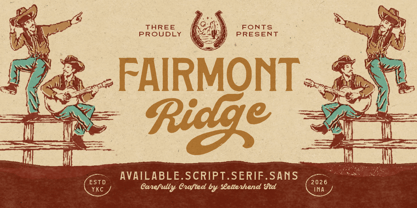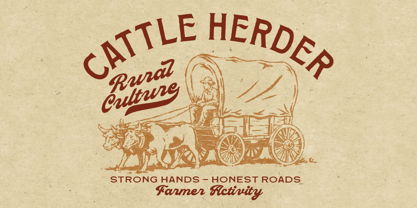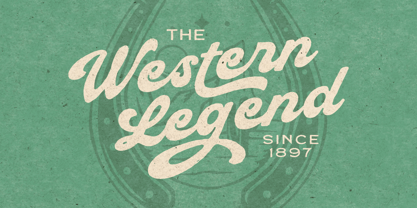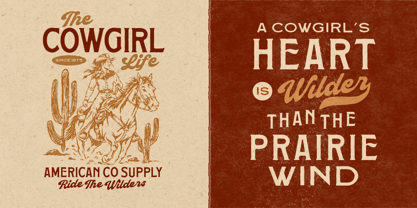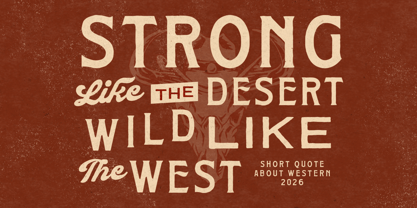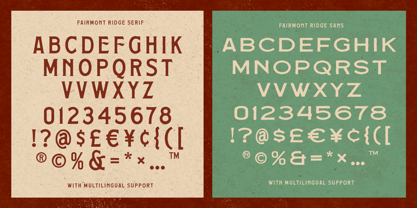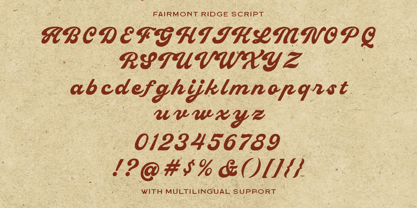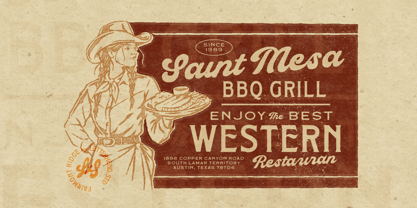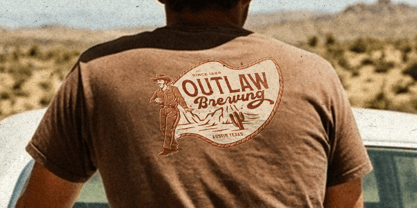
Fairmont Ridge
The Fairmont Ridge Font Family was designed by Aryo Pamungkas and published by Letterhend. Fairmont Ridge contains 3 styles and family package options. More about this family
Fairmont Ridge rides in with classic western charm, blending bold serif, smooth script, and clean sans styles into one rugged vintage family. Inspired by old cowboy signs, dusty roadside motels, and country music posters, this font carries a warm retro spirit with a handcrafted feel that looks timeless and full of character.
Features :
• Uppercase & lowercase
• Script & Sans
• Numbers and punctuation
• Alternates Character
• Multilingual Support